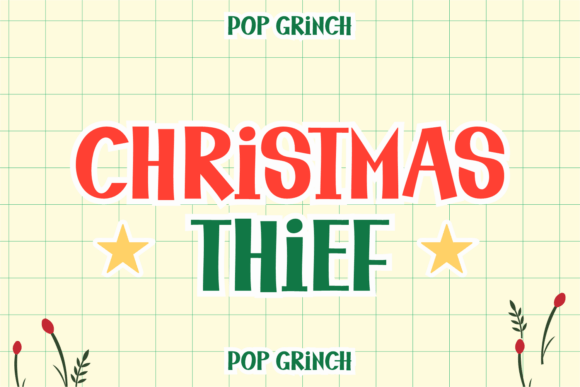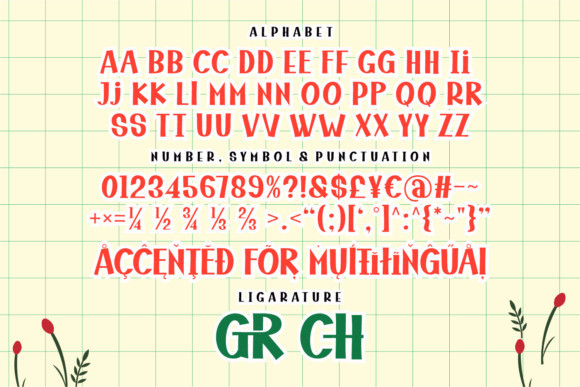
Introduction to Pop Grinch Font
Have you ever been brainstorming ideas for your next holiday design project, only to find yourself stuck in a sea of generic, cookie-cutter fonts? That’s where the magic of the Pop Grinch Font comes in – a free download that’s guaranteed to add a pinch of mischievous charm to your designs.
As a designer, you know the importance of having high-quality design resources at your fingertips. That’s why we’re excited to introduce you to the Pop Grinch Font, a unique and quirky typeface that’s sure to stand out in any creative project. With its transparent background and bold, cartoon-esque style, this font is the perfect addition to any design arsenal.
Whether you’re working on a festive craft project or a holiday-themed design, the Pop Grinch Font is the perfect way to add some holiday cheer to your work. Its charismatic impish charm is sure to bring a smile to your face, and its compelling unevenness is a delight to the eyes. So why settle for boring, generic fonts when you can add a sprinkle of mischievous charm to your designs with the Pop Grinch Font?
Key Features of Pop Grinch Font
- Unique Grinch-inspired design, perfect for creative projects and holiday-themed designs
- High-quality font with a transparent background, ideal for use on various design resources
- Perfect for use in creative projects, such as posters, greeting cards, and social media graphics
Honest Review: Pop Grinch Font
I recently stumbled upon the Pop Grinch Font, and I must say it’s an interesting addition to my design resource library. The free download was a pleasant surprise, and I was excited to experiment with it.
What works well with this font is its unique, playful vibe. The transparent background allows for seamless integration into various design projects, making it a great choice for creative endeavors. The high-quality design is evident, and I appreciate the attention to detail.
- Unique and playful design
- Transparent background for flexibility
- High-quality design with attention to detail
Overall, the Pop Grinch Font is a fun and creative design resource. While it may not be for everyone, it’s an excellent choice for designers looking to add a touch of whimsy to their projects.
The Pop Grinch Font is perfect for creative projects that require a fun and playful touch. Use it for birthday invitations, holiday cards, or social media graphics. The high-quality design resource is also great for commercial projects, such as branding and advertising materials.
To get the most out of the Pop Grinch Font, experiment with different font sizes, colors, and combinations. Use the transparent background feature to create a unique design element that stands out from the rest. Additionally, pair the font with other design resources to create a cohesive and visually appealing design.